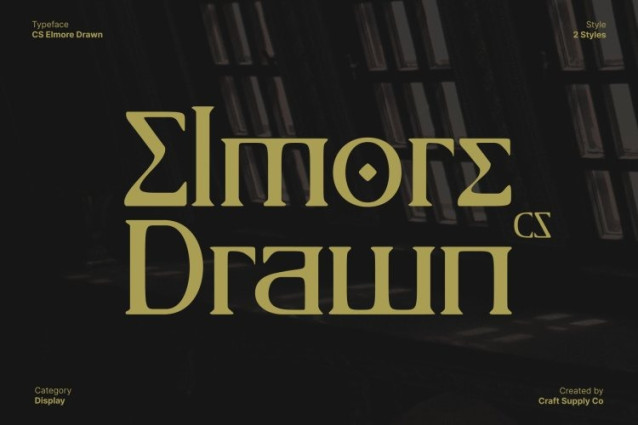
CS Elmore Drawn Font This is a display serif font that blends modern classic design with the enduring elegance of Ancient Greek–inspired letterforms. Its sharp yet refined serifs are paired with balanced proportions, while the drawn texture adds a subtle handcrafted quality. This combination creates typography that feels cultured, expressive, and rich with historical character, yet perfectly suited to contemporary design.
Classical Inspiration, Contemporary Clarity
Influenced by Greek inscriptions and classical architecture, this font features thoughtful curves and dignified proportions that echo intellectual heritage and artistic depth. The hand-drawn effect softens its formality, introducing warmth and visual texture without sacrificing clarity or structure, resulting in a font that feels both authoritative and approachable.
Elegant and Authoritative for Premium Use
This font is ideal for editorials, academic publications, book covers, luxury branding, and cultural identities. Its sophisticated presence communicates knowledge, refinement, and credibility, making it an excellent choice for designs that seek to project timeless elegance with a modern sensibility.
A Typeface for Meaningful Storytelling
Standing at the intersection of history and modern design, this font offers more than visual beauty it tells a story. With its classical roots and handcrafted nuance, this typeface brings tradition, wisdom, and artistic richness to projects that value depth, culture, and lasting impact.